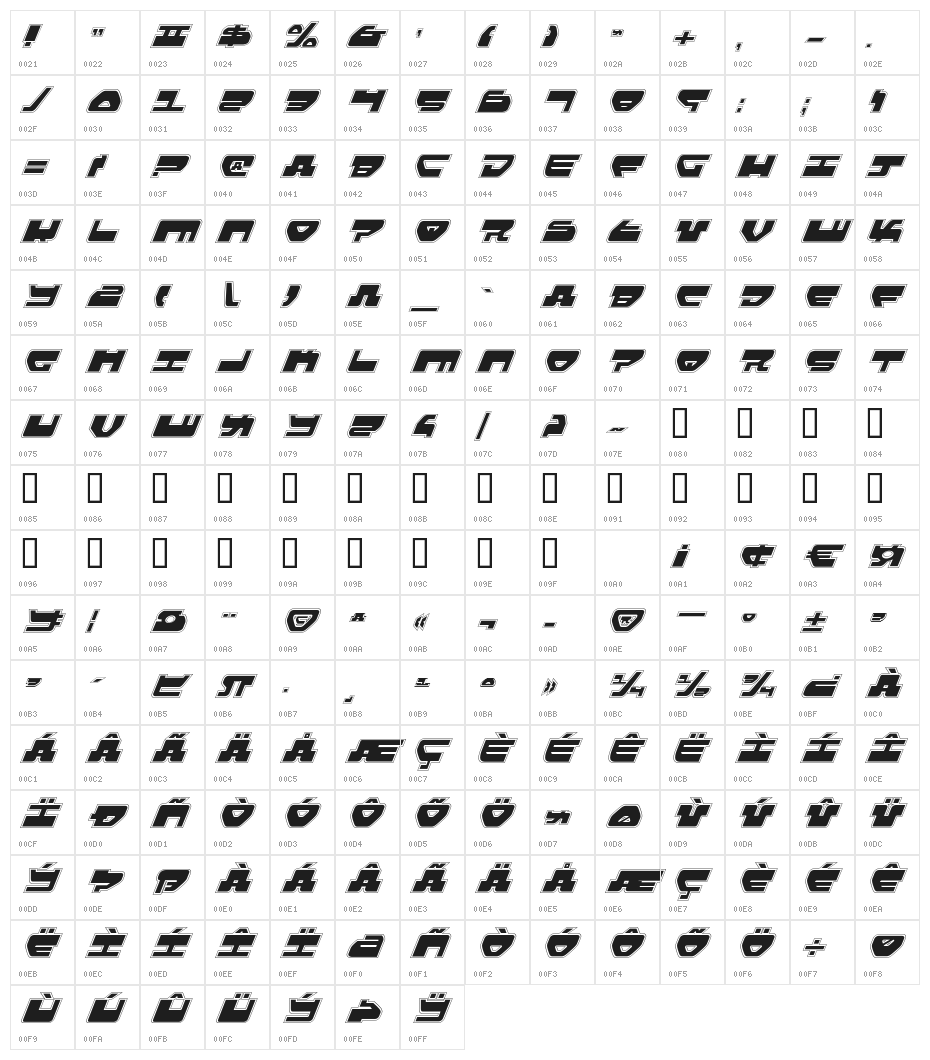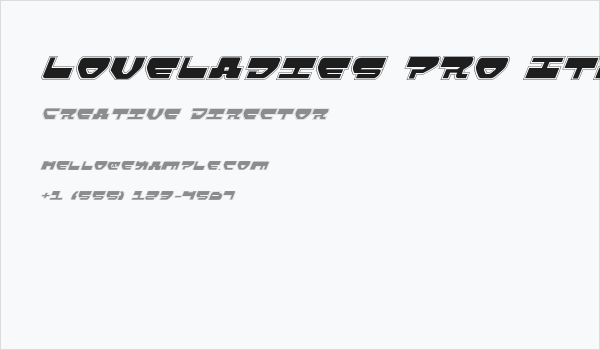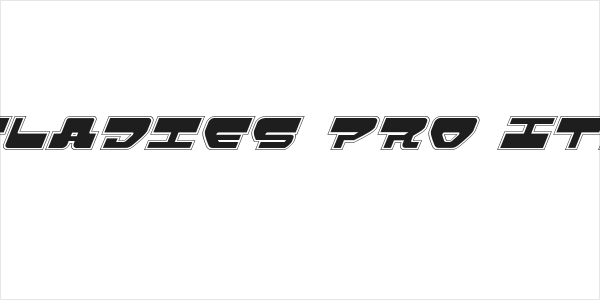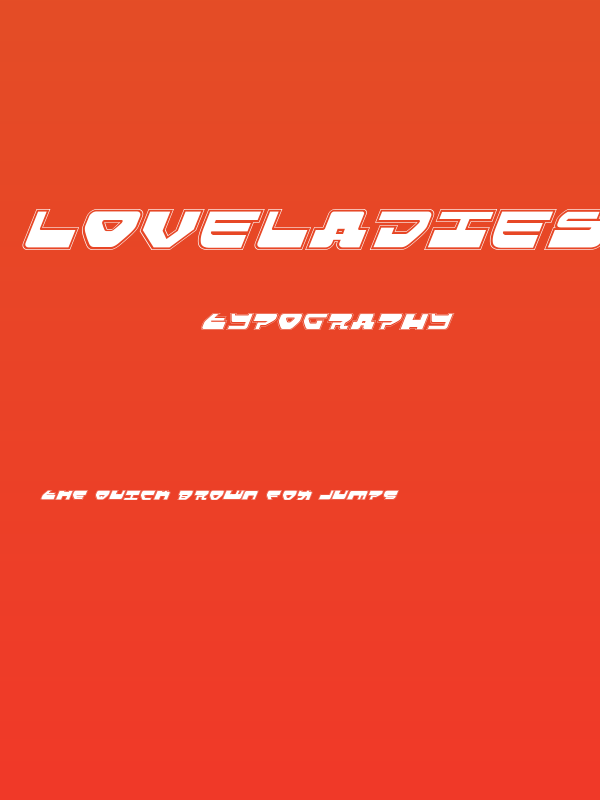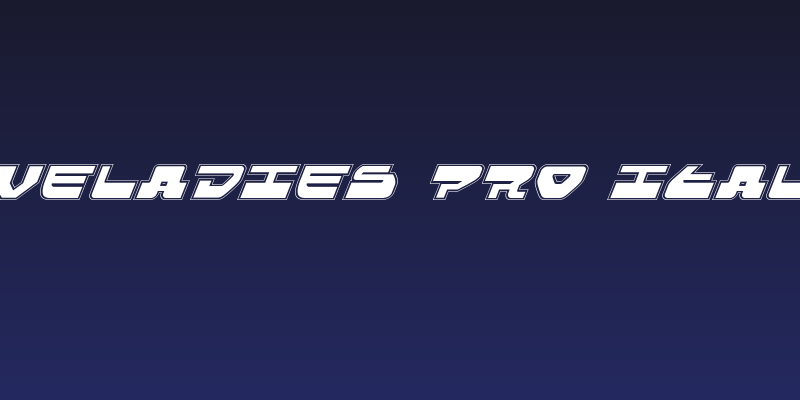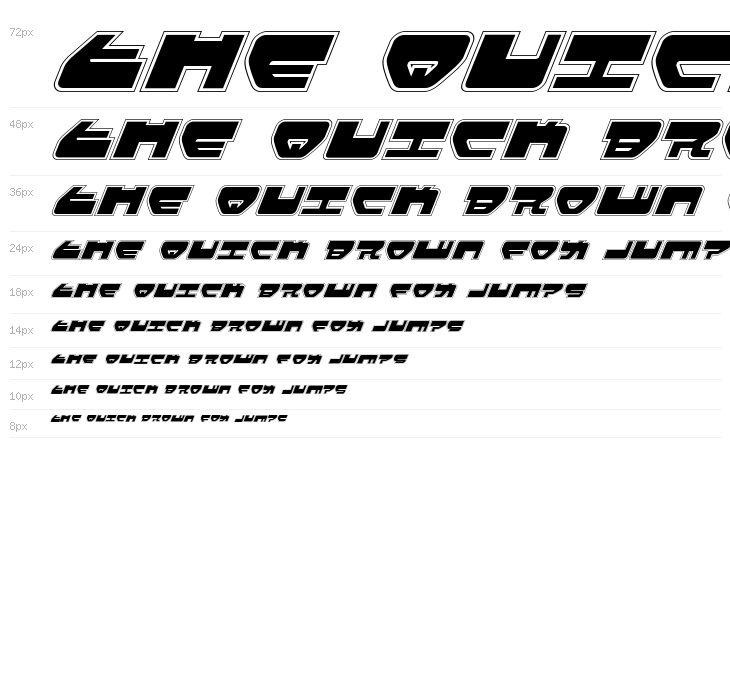
Loveladies Pro Italic Font
Loveladies Pro Italic Description
This font features a bold, futuristic design with a distinct italic slant, giving it a dynamic and energetic appearance. The characters are constructed with sharp angles and geometric shapes, creating a sense of movement and modernity. The bold outlines enhance its visibility and make it stand out, while the italic style adds a touch of sophistication. The font is well-suited for projects that require a strong visual impact, such as technology branding, sports team logos, or dynamic advertising campaigns. Its unique style makes it ideal for headlines and display purposes, where it can capture attention and convey a sense of innovation.
| Proposed Projects | Ideal for technology branding, sports logos, dynamic advertising, and headlines. |